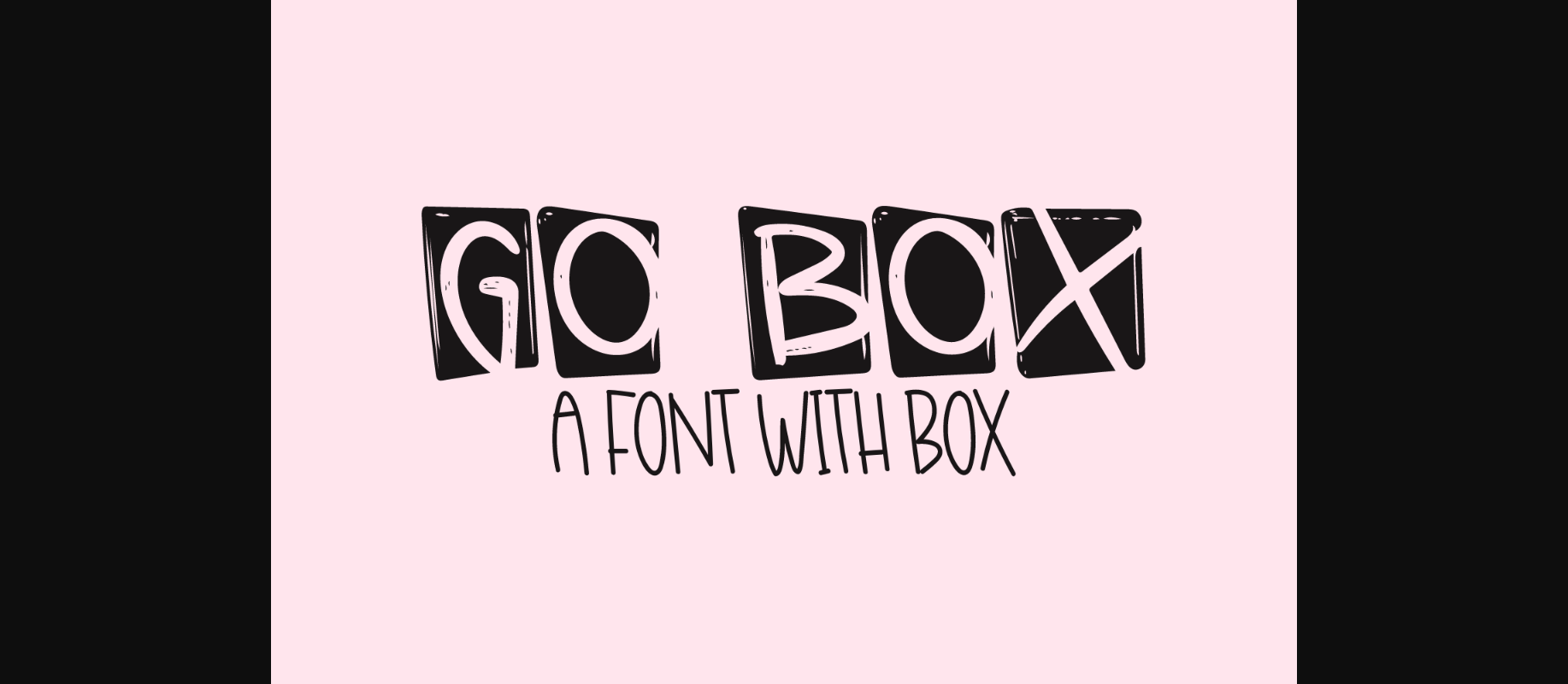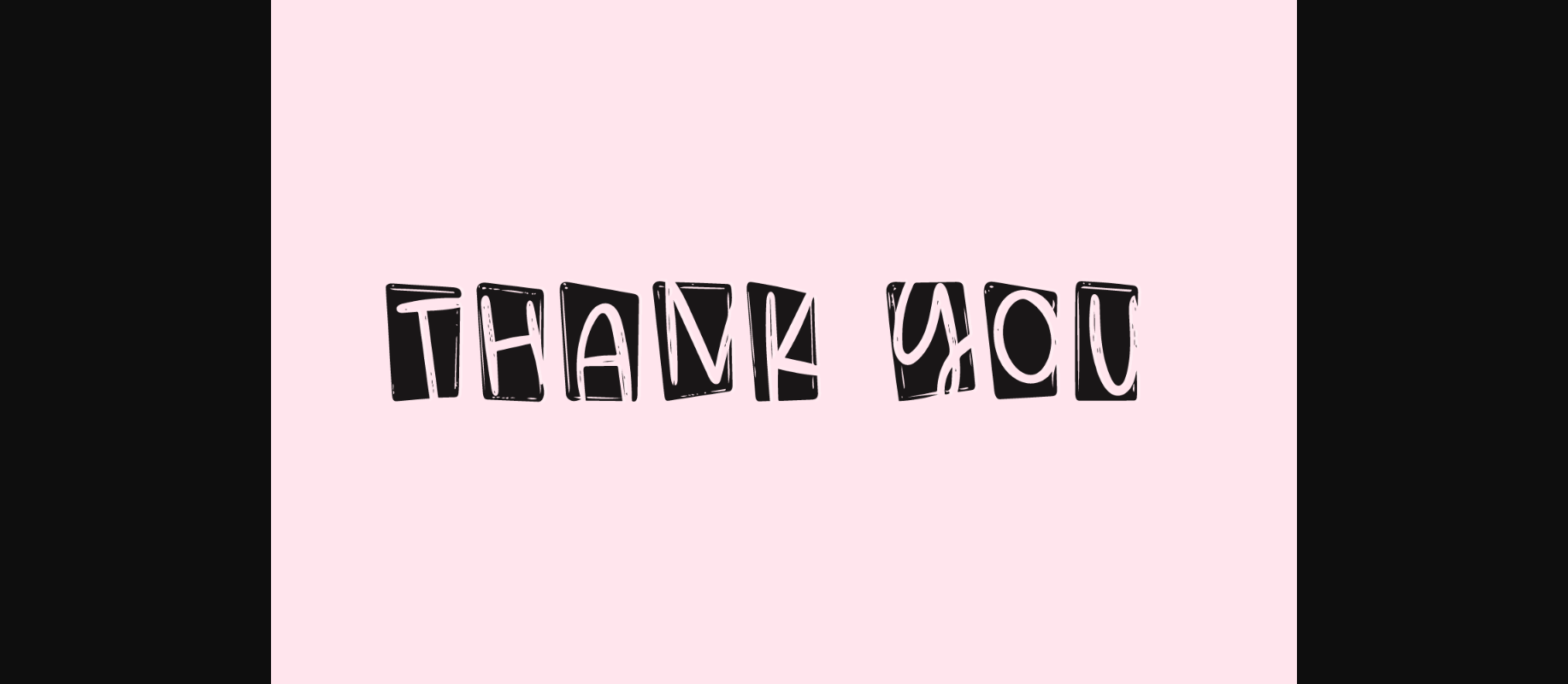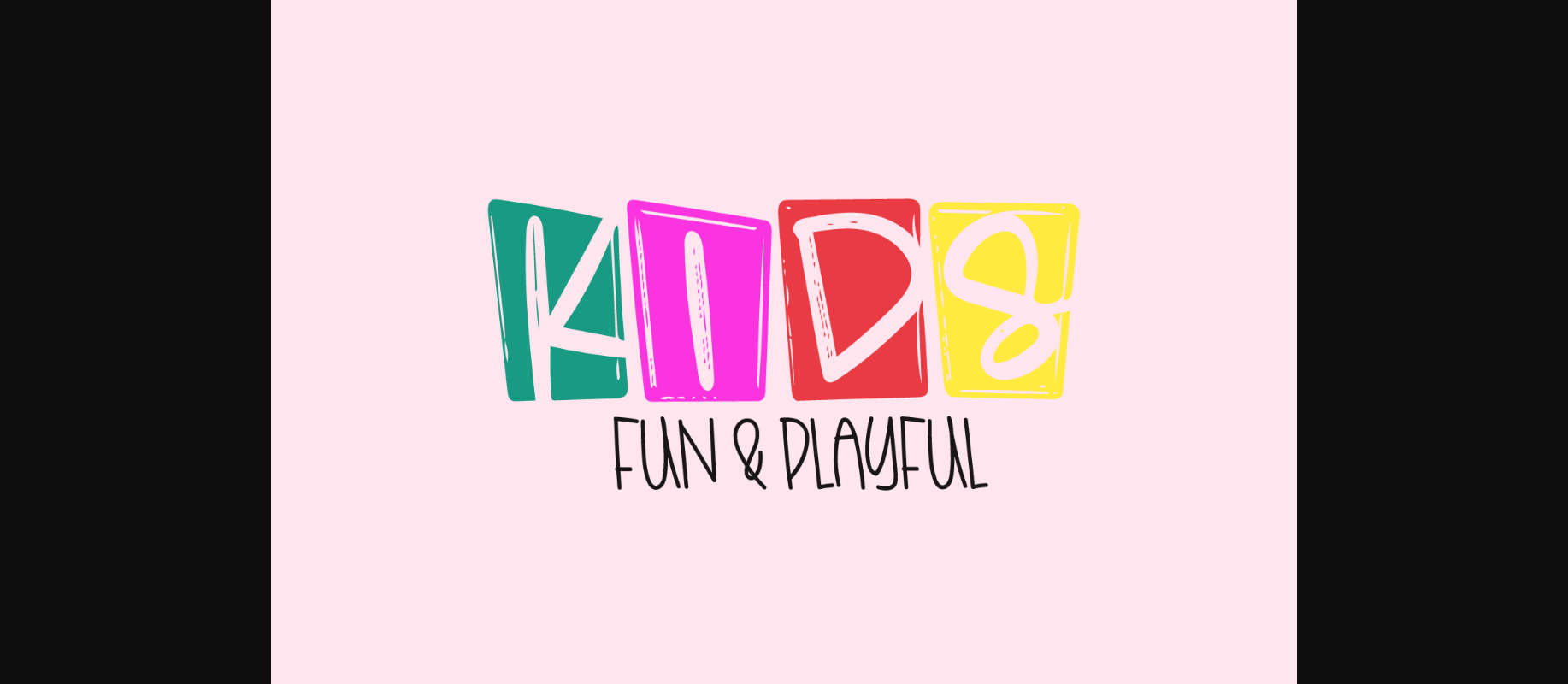
About Go Box Font
Go Box is a bold decorative font that is perfectly suited for traditional media and web posting. It is great for crafters and graphic artists alike. Playful and unique, it will make an amazing addition to any creative project, be it inspirational wall posters or brand promotions.